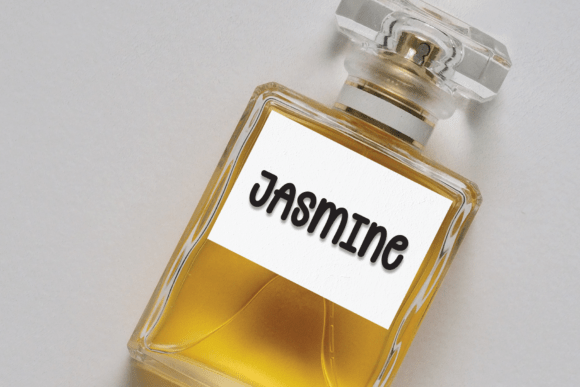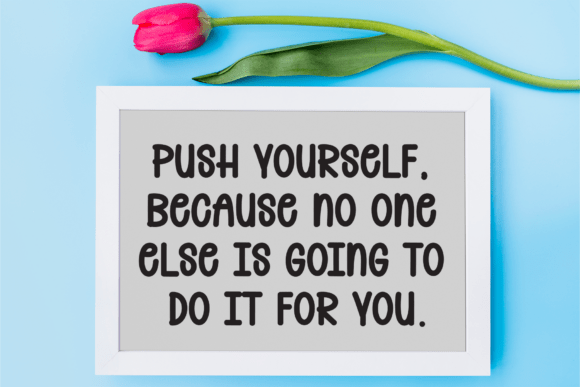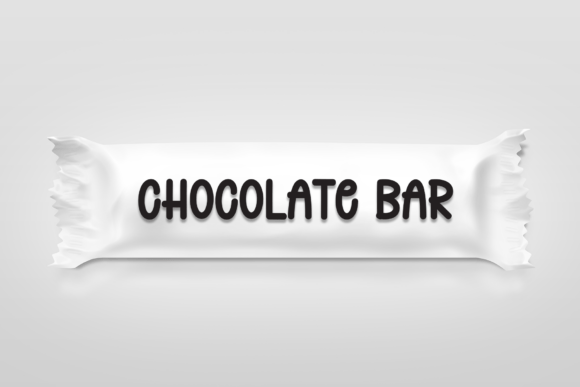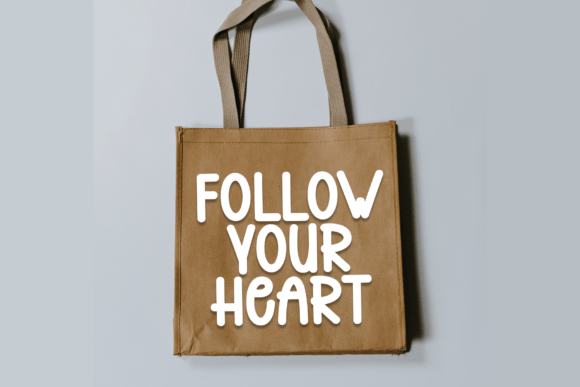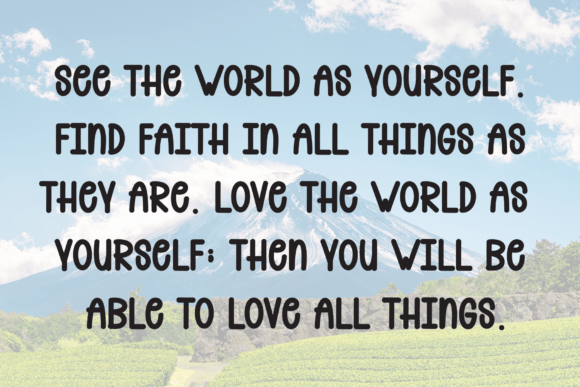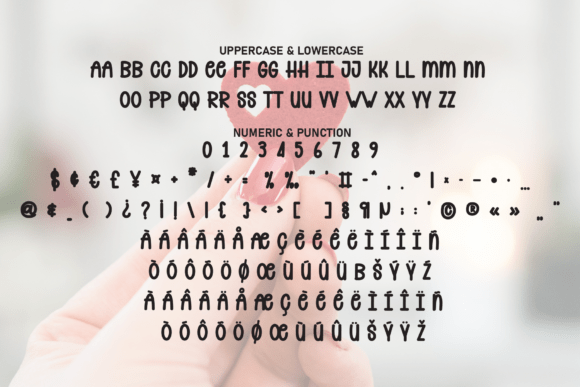
Introducing Heart Font: The Perfect Choice for Playful and Whimsical Designs
Are you looking for a font that can add a touch of playfulness and joy to your designs? Look no further than Heart Font, a delightfully sweet and amiable handwritten display font that is sure to capture the essence of fun and whimsy. With its lighthearted and cheerful appeal, Heart Font is the perfect choice for crafting captivating wedding invitations, uniquely designed cards, and any other project that requires a sprinkle of fun.
The Characteristics of Heart Font
Heart Font is a handwritten display font that boasts a playful and charming personality. Its lighthearted and cheerful appeal makes it an impeccable choice for designers and crafters who want to add a personal touch to their creations. The font features:
- Delightfully sweet and amiable handwritten style
- Lighthearted and cheerful appeal
- Perfect for wedding invitations, cards, and other design projects
- Whimsically unique and playful feel
The Benefits of Using Heart Font
Heart Font offers a range of benefits for designers and crafters, including:
- Personalized touch: With Heart Font, you can add a personal and jovial touch to your designs, making them stand out and captivate everyone’s gaze.
- Versatility: Heart Font is perfect for a range of design projects, from wedding invitations and cards to posters, flyers, and more.
- Unique and creative: Heart Font offers a unique and creative way to express yourself and bring your designs to life.
How to Use Heart Font in Your Designs
Using Heart Font in your designs is easy and straightforward. Here are some tips to get you started:
- Pair with other fonts: Heart Font pairs well with other fonts, such as sans-serif fonts, to create a unique and visually appealing design.
- Experiment with colors: Heart Font looks great in a range of colors, from bright and bold to soft and pastel.
- Add graphics and illustrations: Heart Font pairs well with graphics and illustrations, such as flowers, hearts, and other whimsical designs.
- Keep it simple: Don’t be afraid to keep your design simple and clean, allowing Heart Font to take center stage.
Inspiration for Your Designs
Heart Font is perfect for a range of design projects, including:
- Wedding invitations: Create beautiful and unique wedding invitations that set the tone for the big day.
- Birthday cards: Design personalized and playful birthday cards that will make the recipient feel special.
- Posters and flyers: Use Heart Font to create eye-catching posters and flyers that grab attention and communicate your message.
- Social media graphics: Add a touch of personality to your social media graphics, such as Facebook posts and Instagram stories.
Heart Font is a delightful and charming handwritten display font that is perfect for designers and crafters who want to add a touch of playfulness and joy to their designs. With its lighthearted and cheerful appeal, Heart Font is sure to capture the essence of fun and whimsy, making it an impeccable choice for a range of design projects. So why not give Heart Font a try and see how it can bring your designs to life?